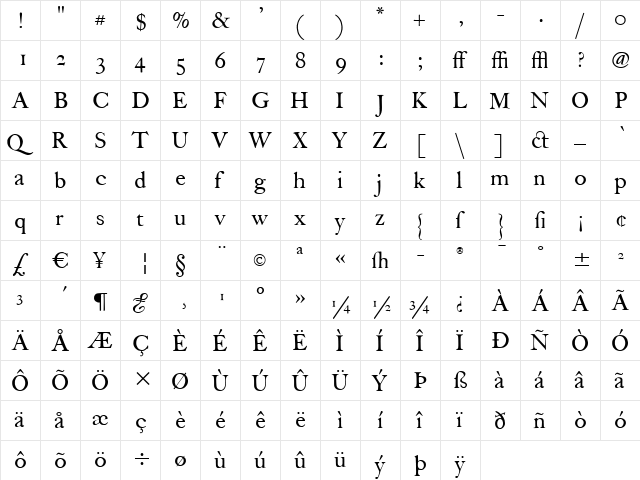
FCaslon 30 ITC Roman
Roman · International Typeface Corporation  ·
Design Context for FCaslon 30 ITC Typeface
FCaslon 30 ITC is a composed and adaptable typeface that performs quietly and consistently across a wide range of design contexts.